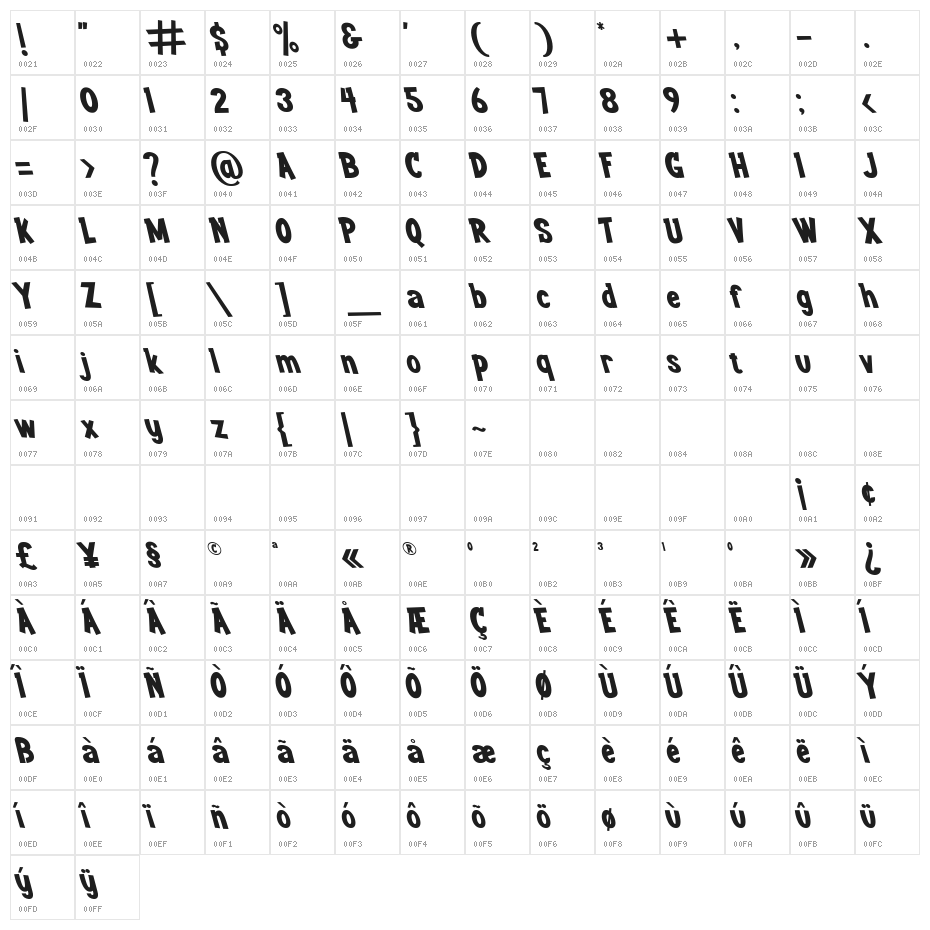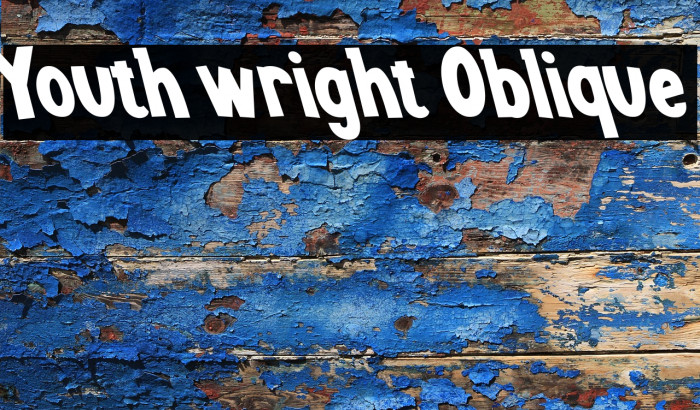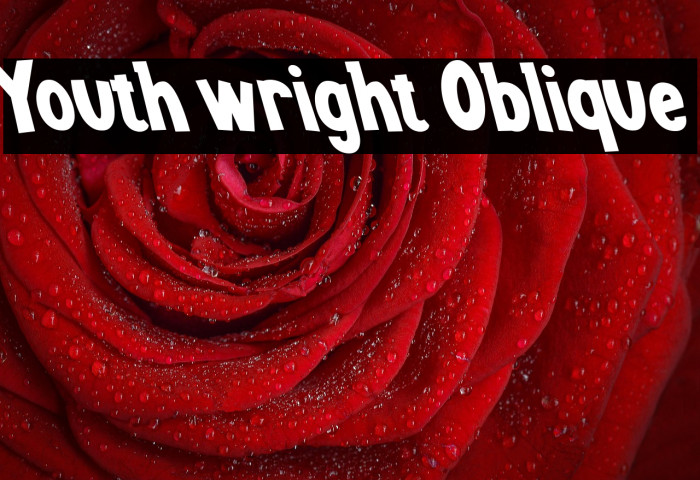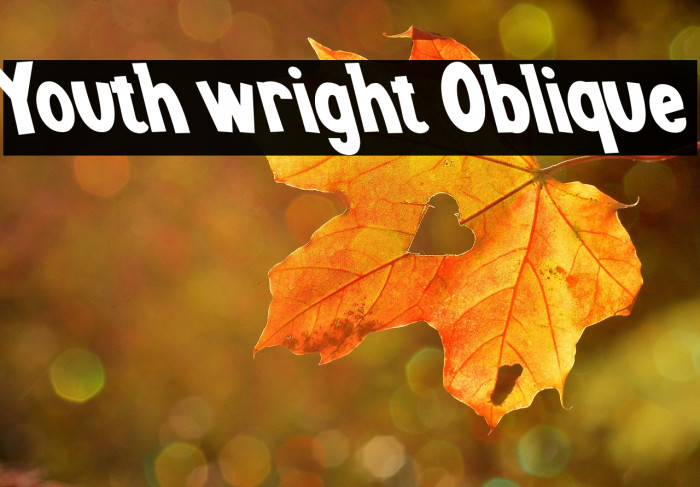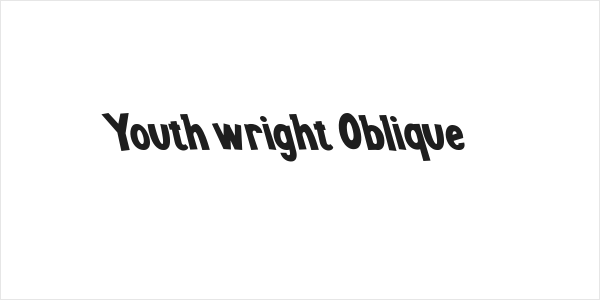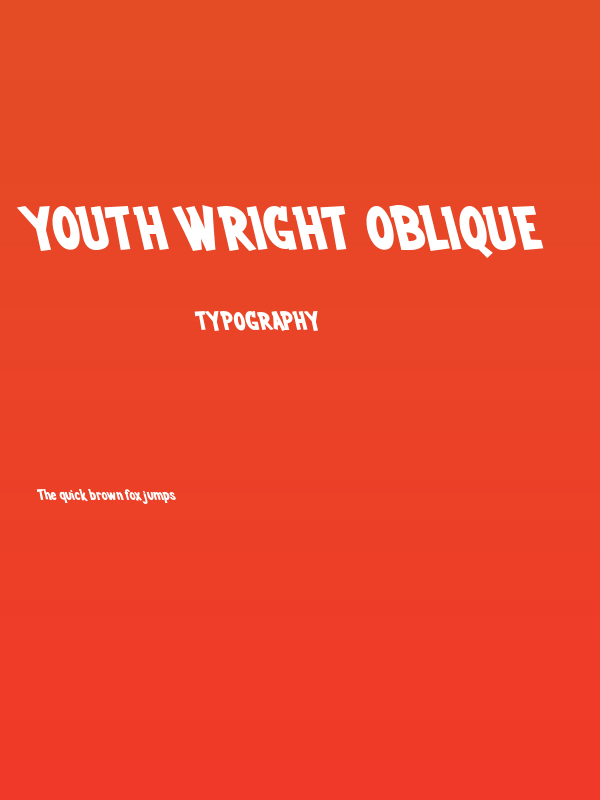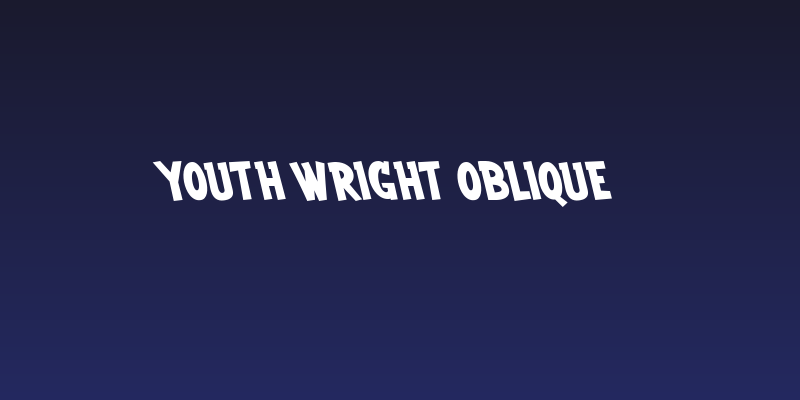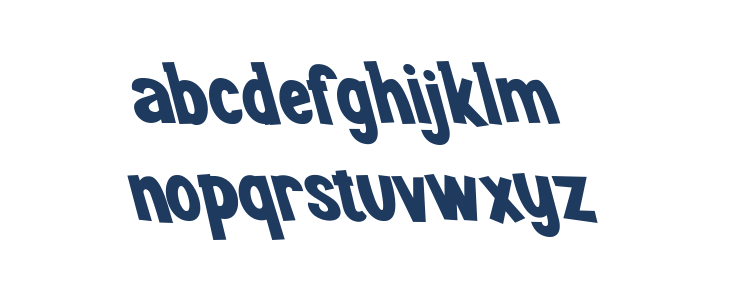
Youth wright Oblique Font
Youth wright Oblique Description
This font features a bold and playful design with a distinct oblique slant, giving it a dynamic and energetic appearance. The characters are thick and robust, with a slight curvature that adds a sense of movement and fluidity. The uppercase and lowercase letters maintain a consistent style, with rounded edges and a slightly condensed form. The numerals are equally bold, ensuring visibility and impact. Special characters are designed to match the overall playful and bold aesthetic, making this font suitable for eye-catching designs.
Overall StylePlayful, Energetic, Modern
Use CaseHeadlines, Posters, Branding
Proposed ProjectsIdeal for children's books, playful branding, posters, and creative advertising campaigns.